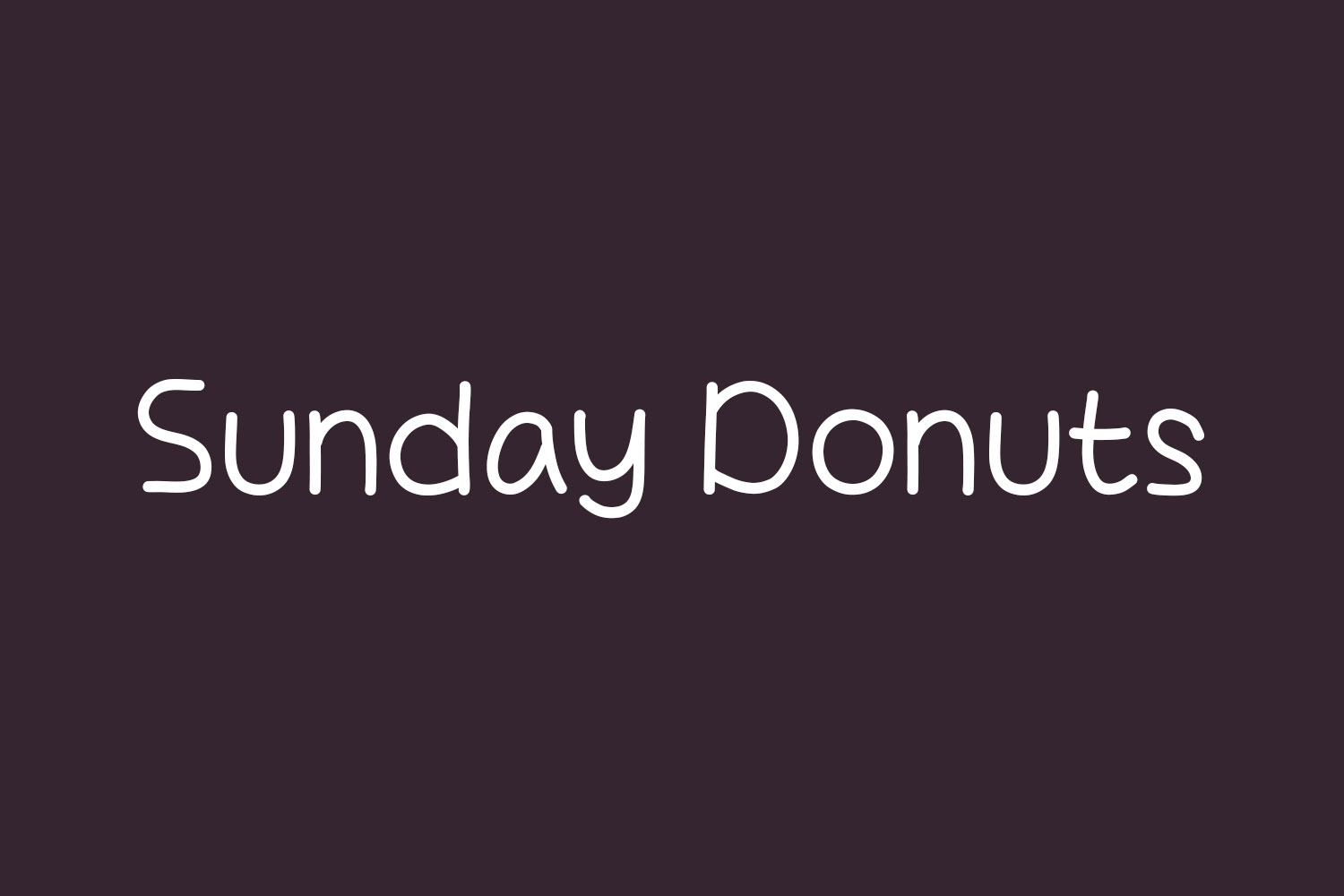
Introducing Sunday Donuts Free Font, a contemporary and charming handwritten font ideal for various projects like posters, logos, magazines, book covers, banners, and more! Embrace this fantastic font and infuse your designs with its delightful appeal. Its versatility allows effortless pairing with a diverse range of projects, enhancing your creativity and ensuring they shine brightly. Sunday Donuts Free Font is free for personal or commercial use.